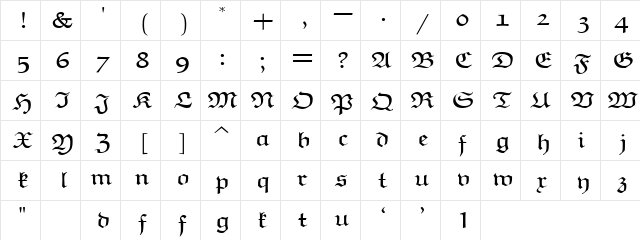
eufm5 Regular Font Preview
eufm5 Regular
eufm5 Regular Font Details
Design Context for eufm5 Typeface
eufm5 is a composed and adaptable typeface that performs quietly and consistently across a wide range of design contexts.